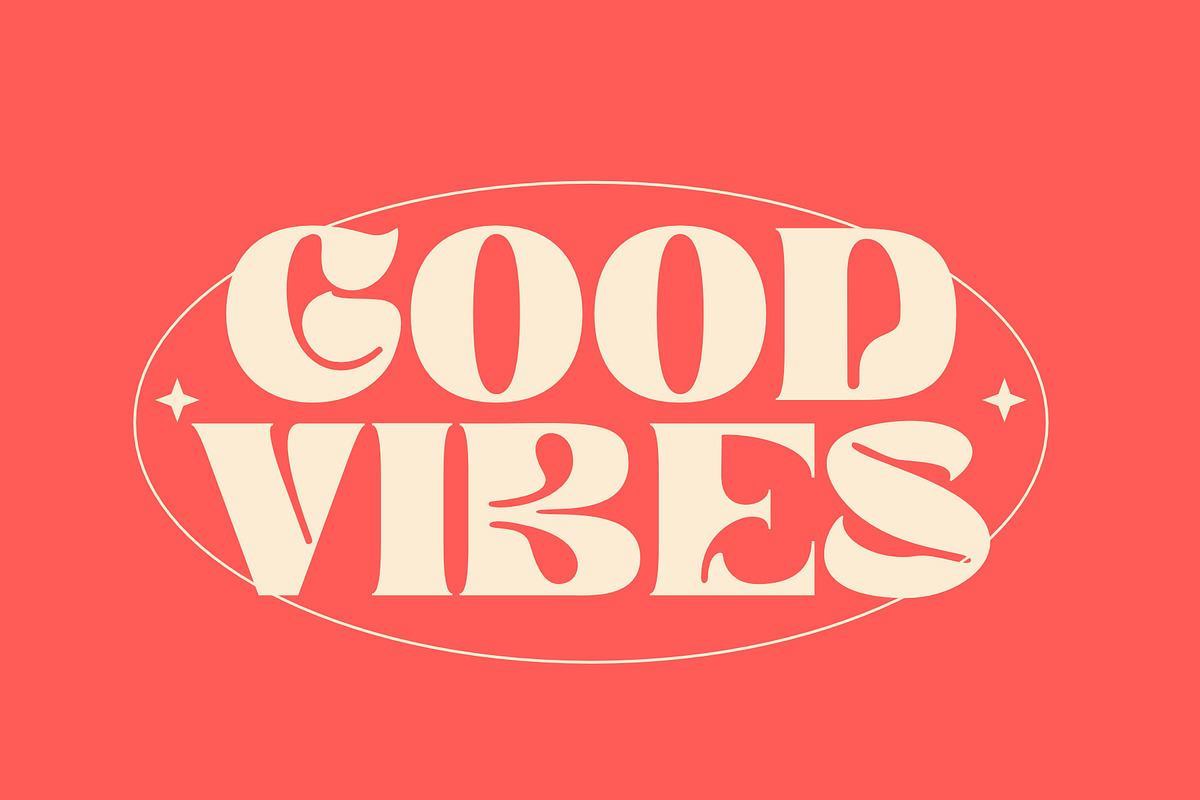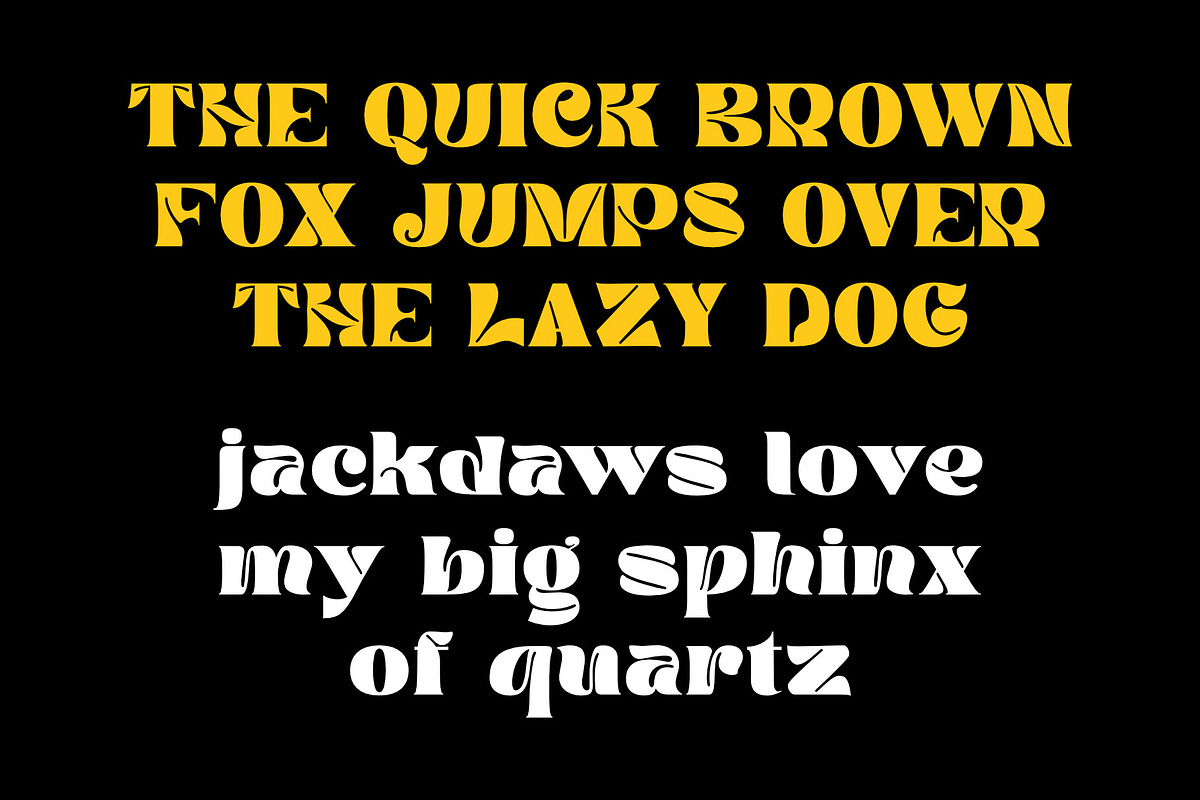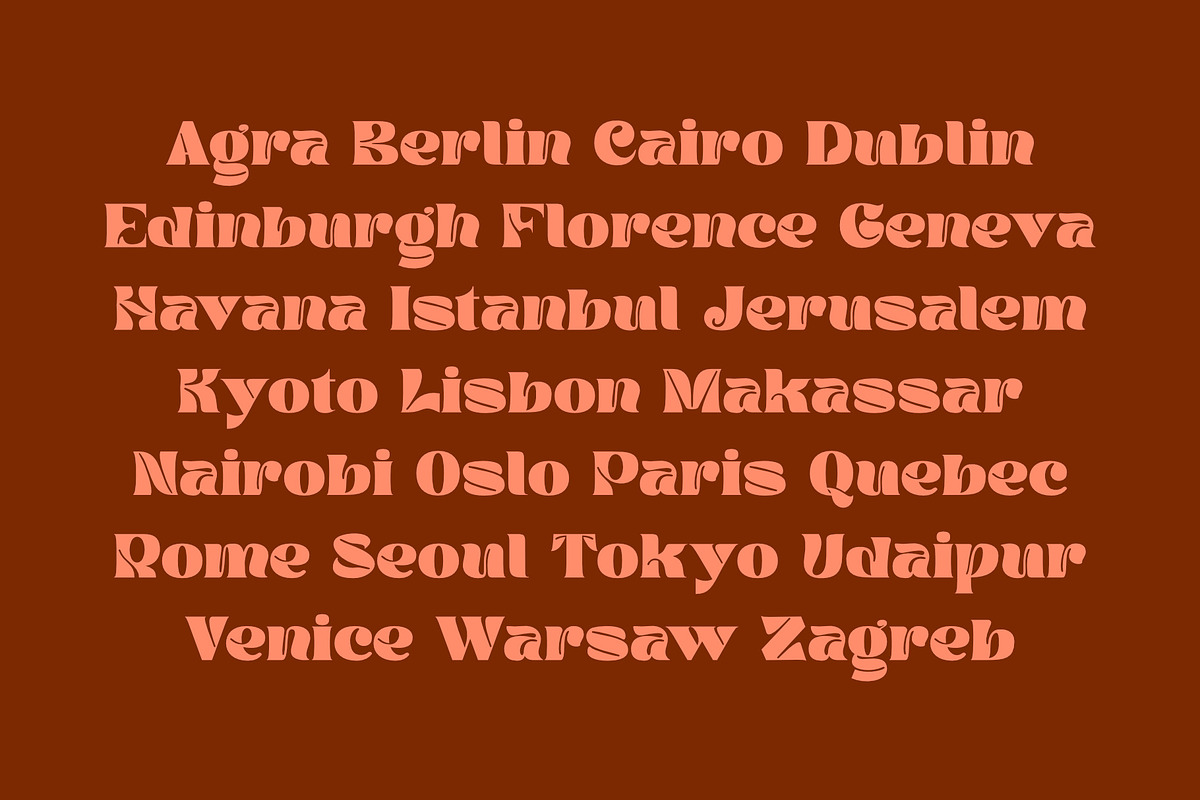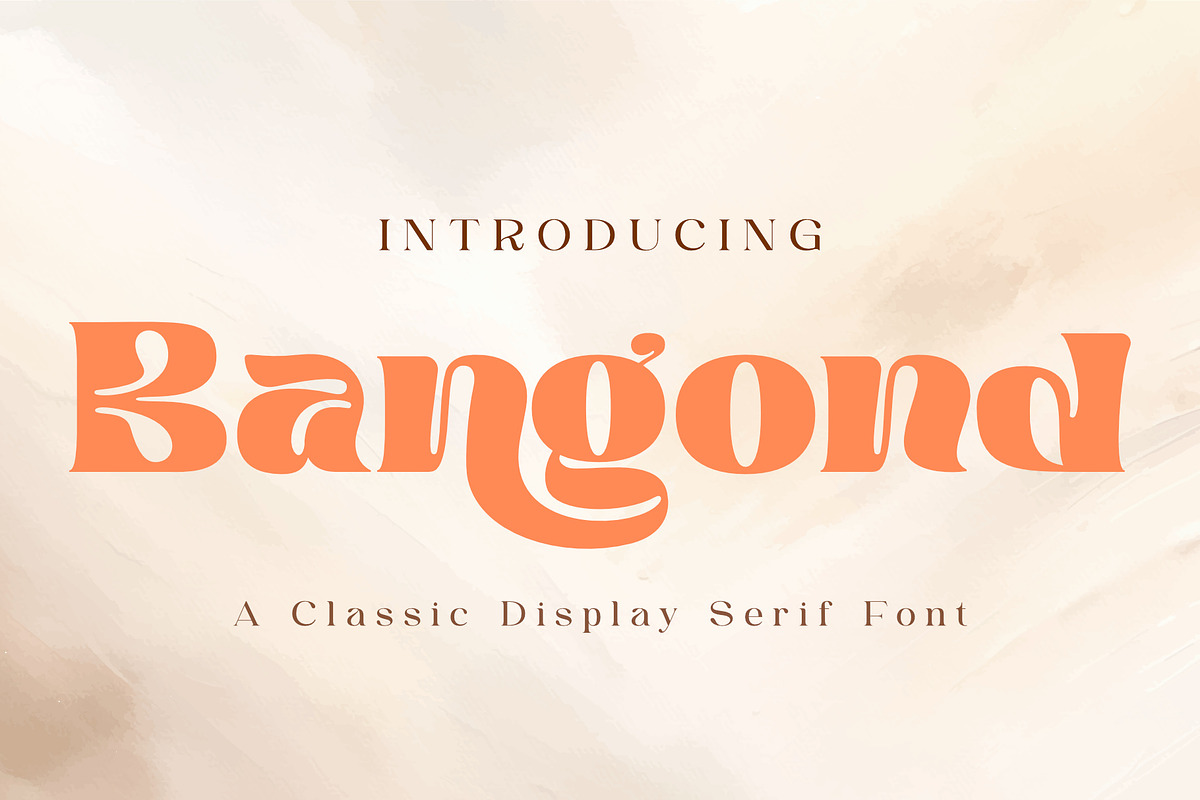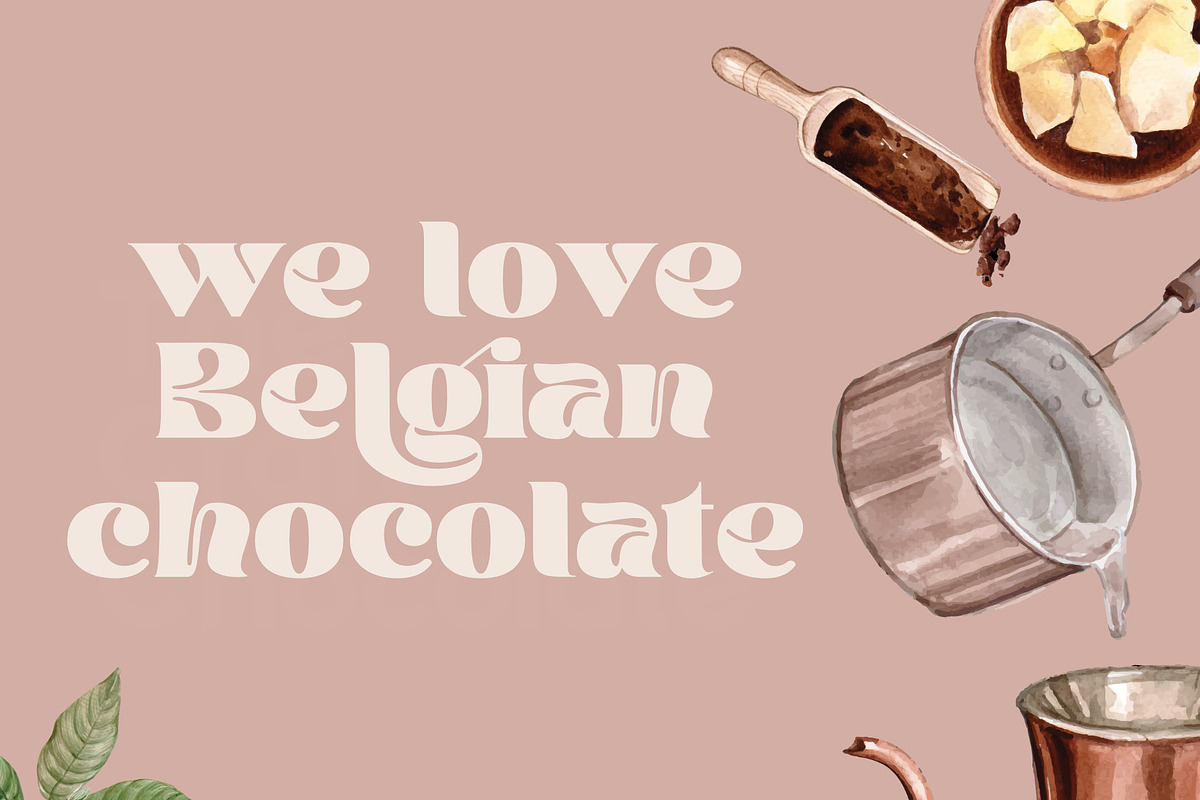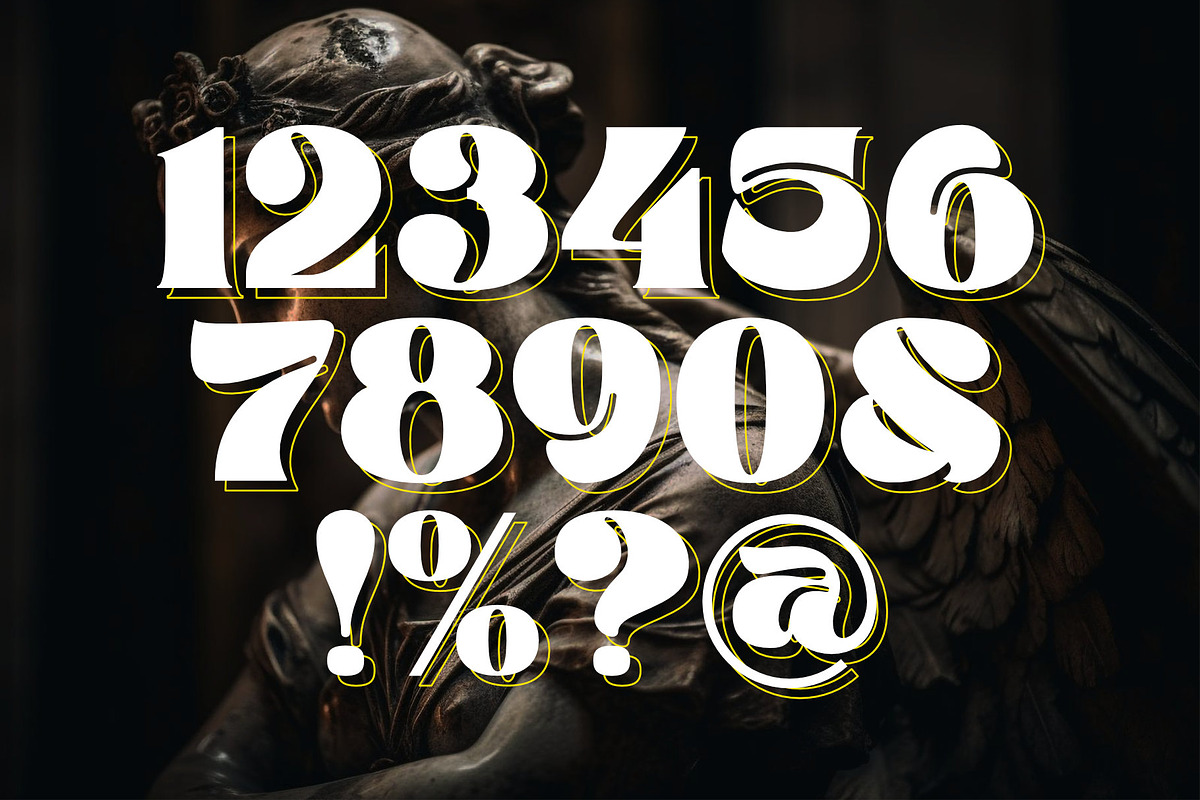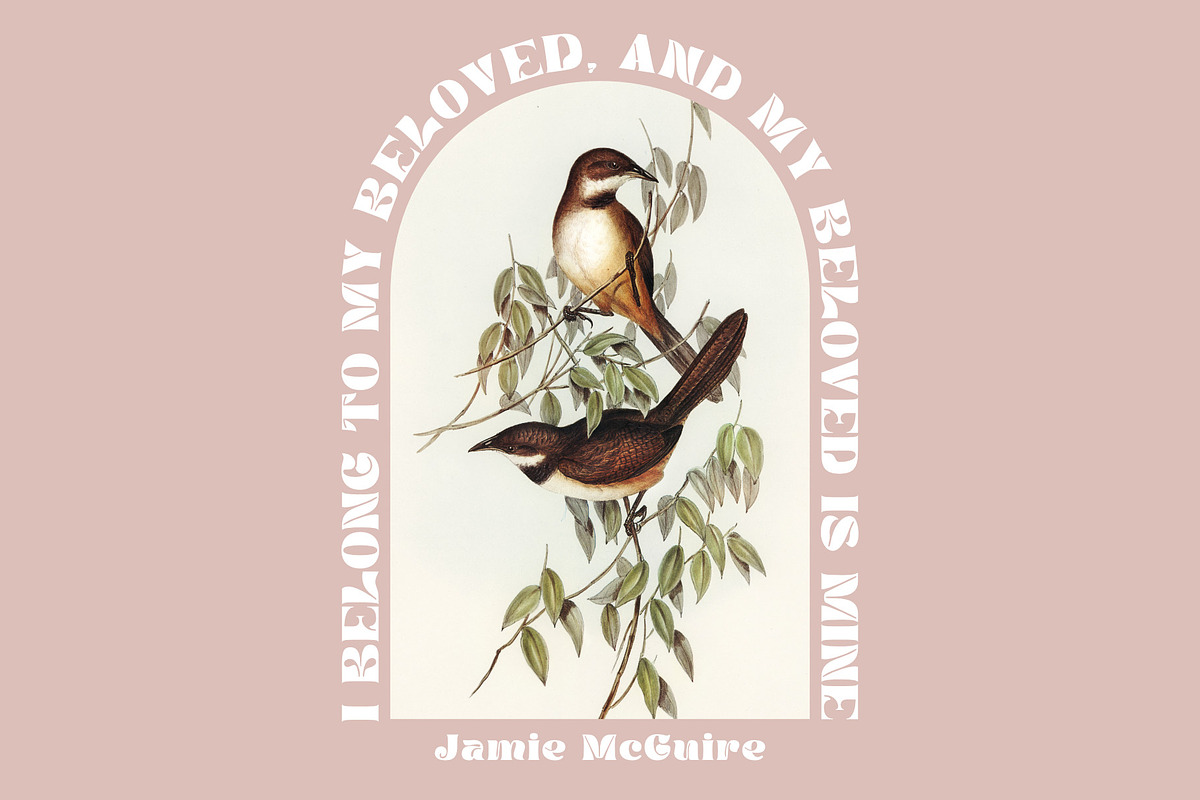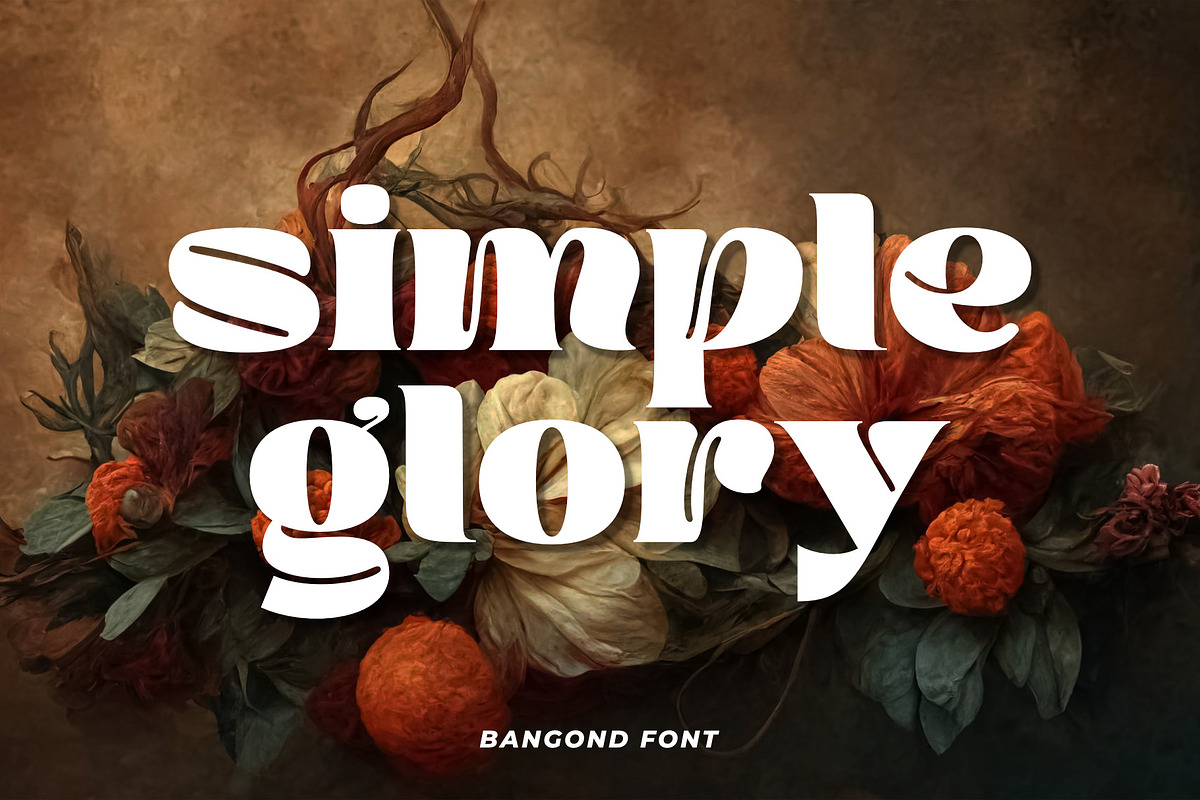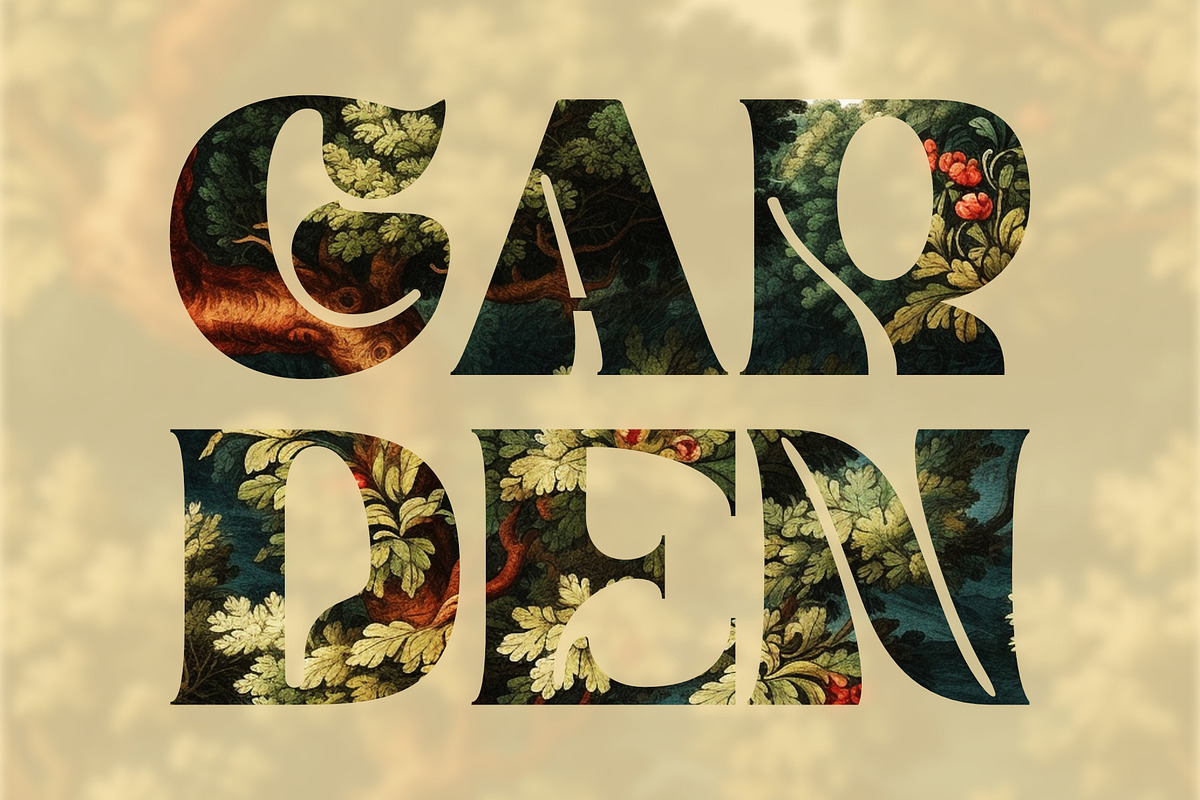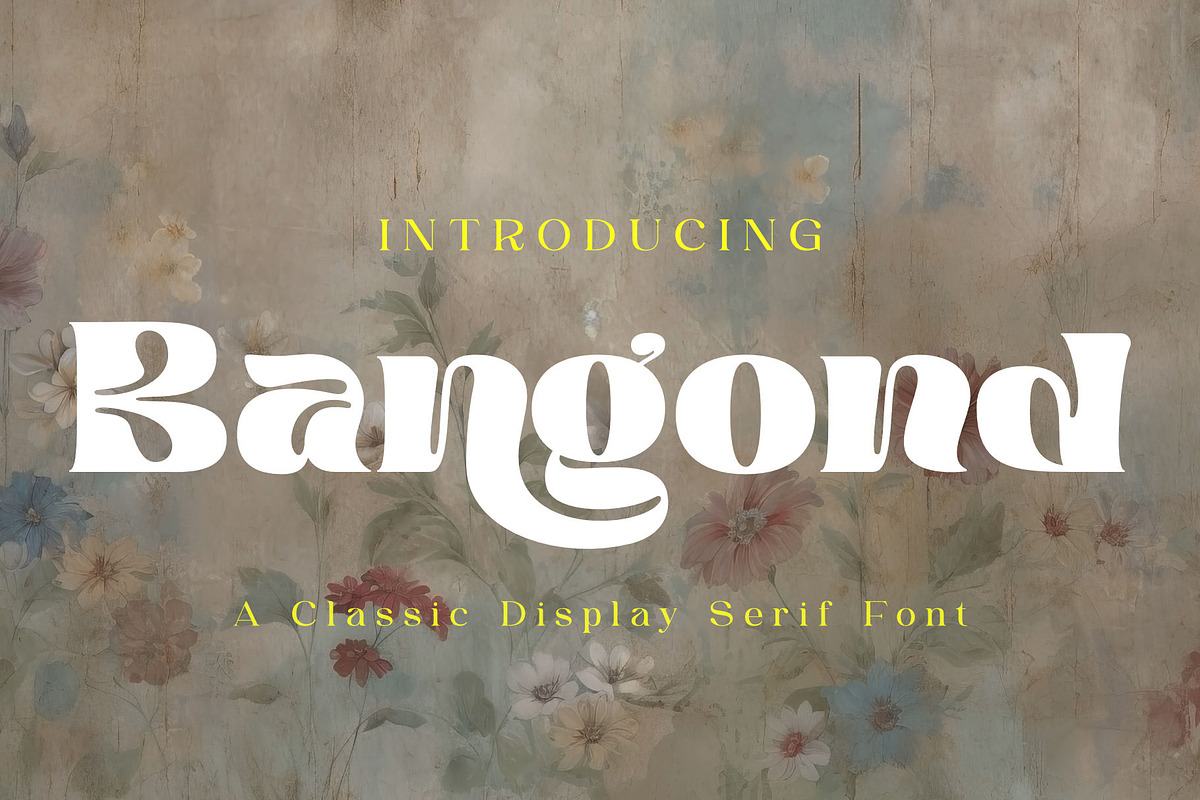
Bangond | A Bold Classic Serif
Bangond is a timeless serif font that seamlessly blends elegance with impact. With its slightly bracketed serifs and horizontal stress, Bangond exudes sophistication. Its open counters and moderate contrast between thick and thin strokes ensure readability. Perfect for vintage aesthetics, branding, and impactful designs. Explore Bangond for a touch of classic charm in your typography.
- Alternates and Ligatures